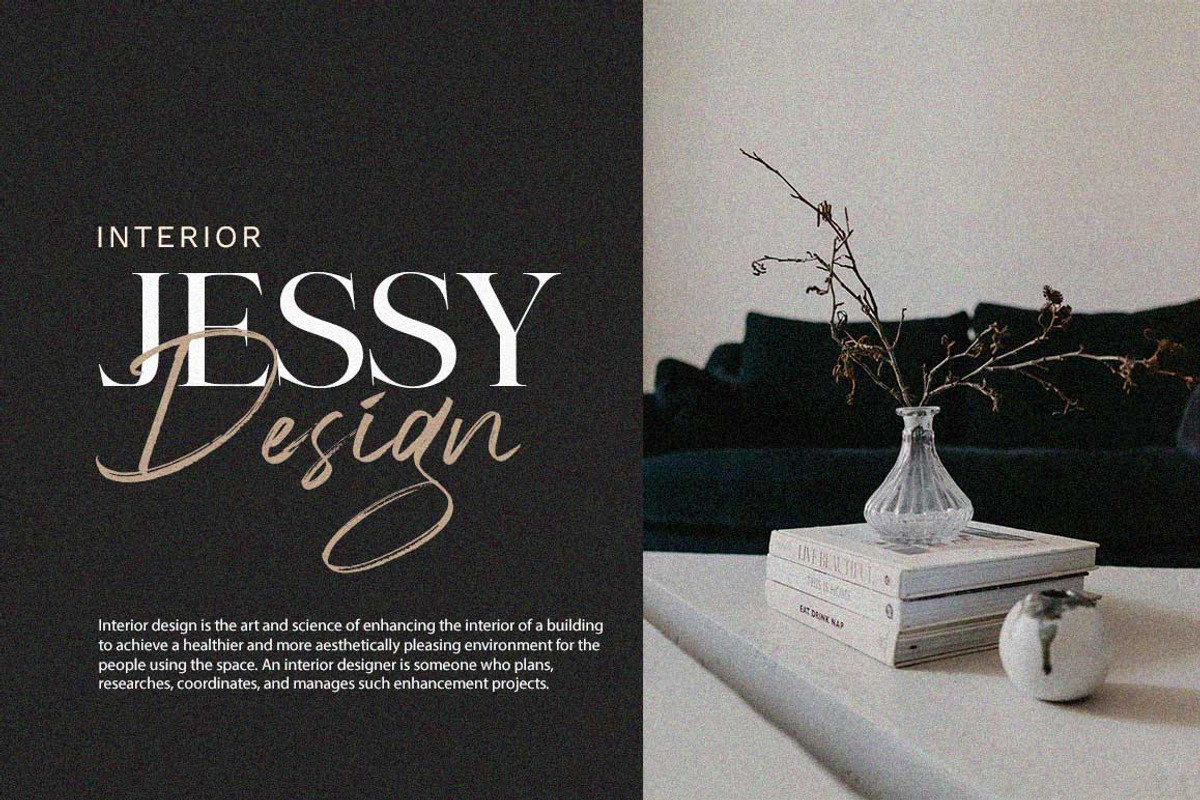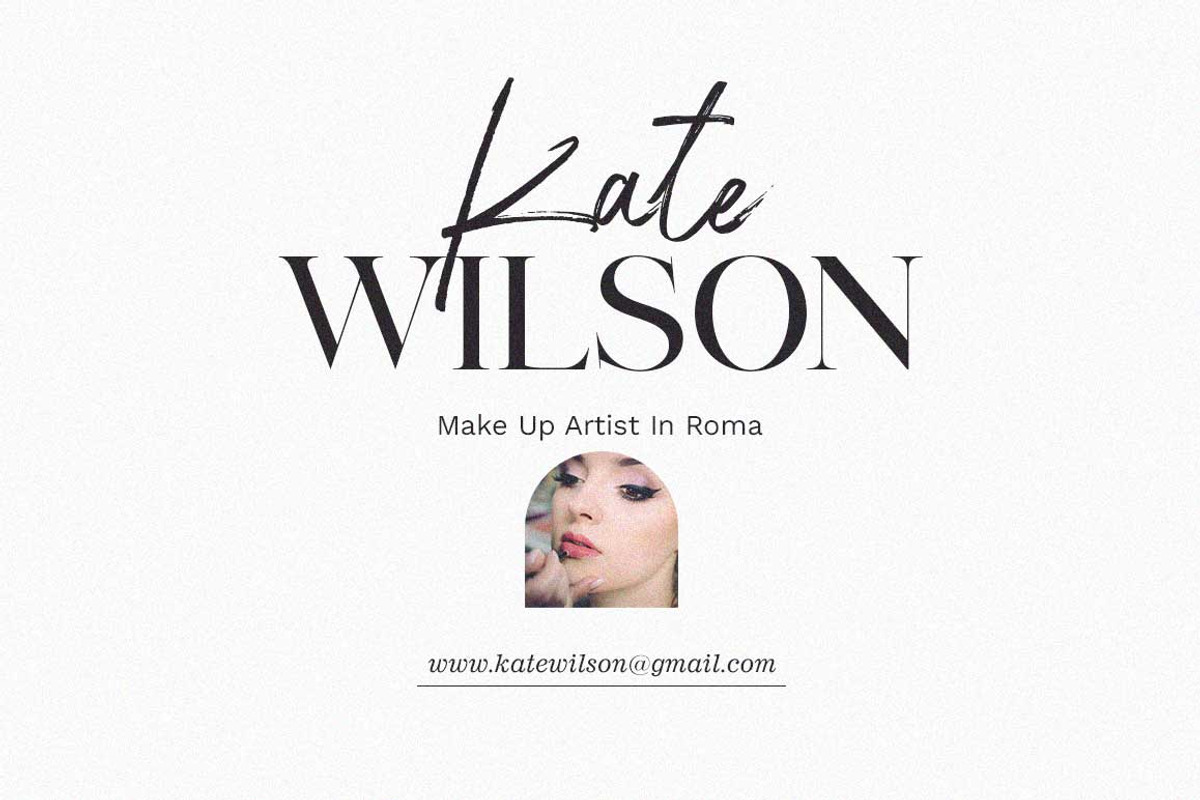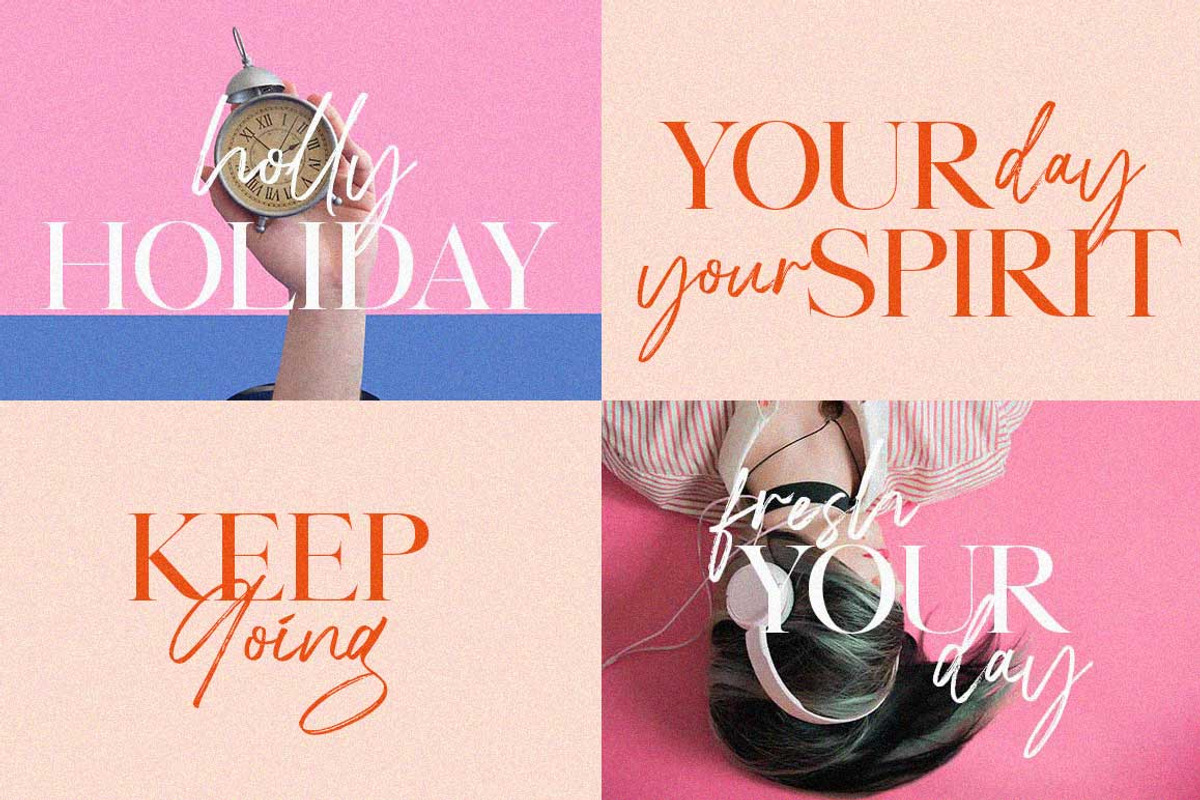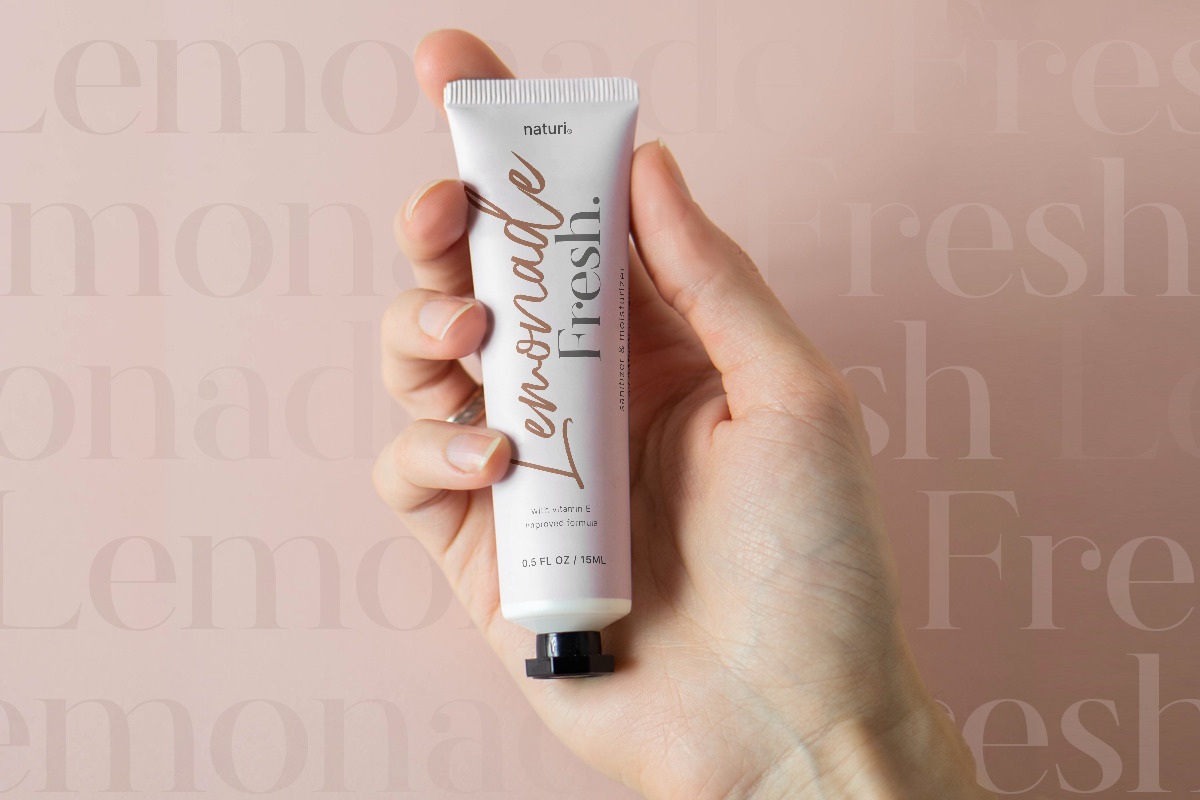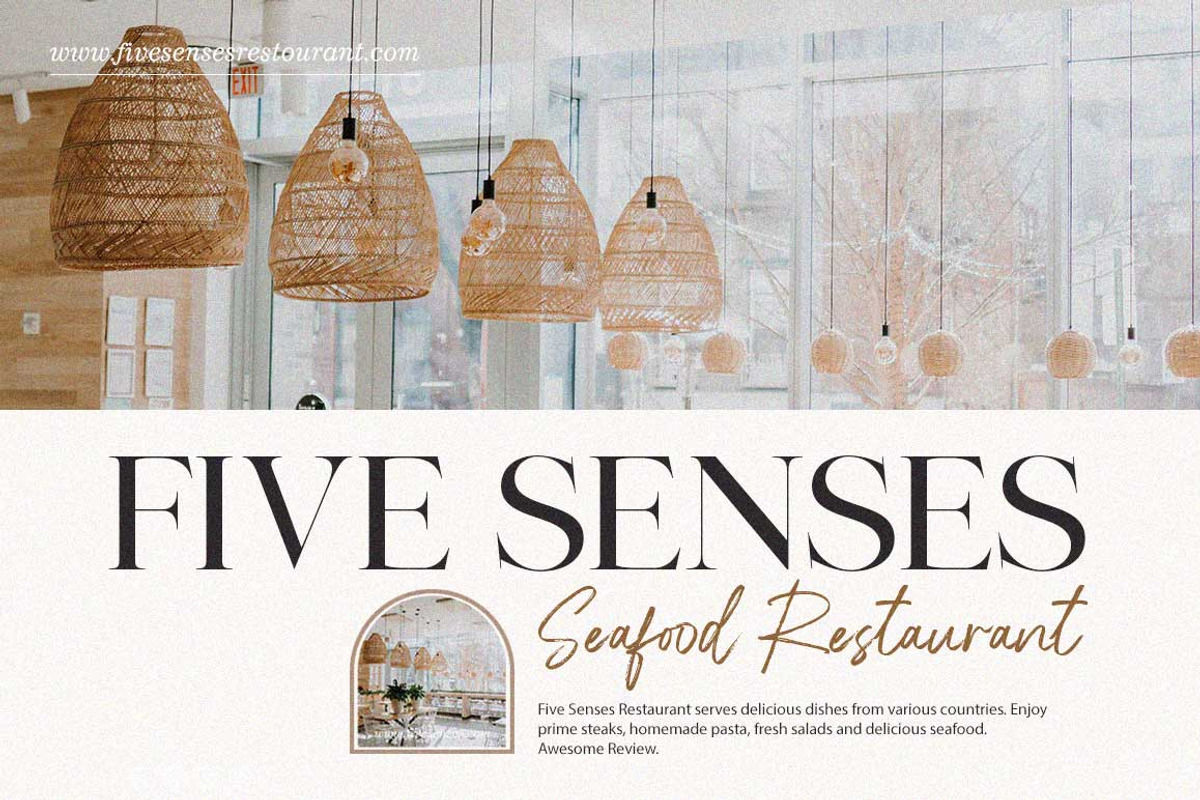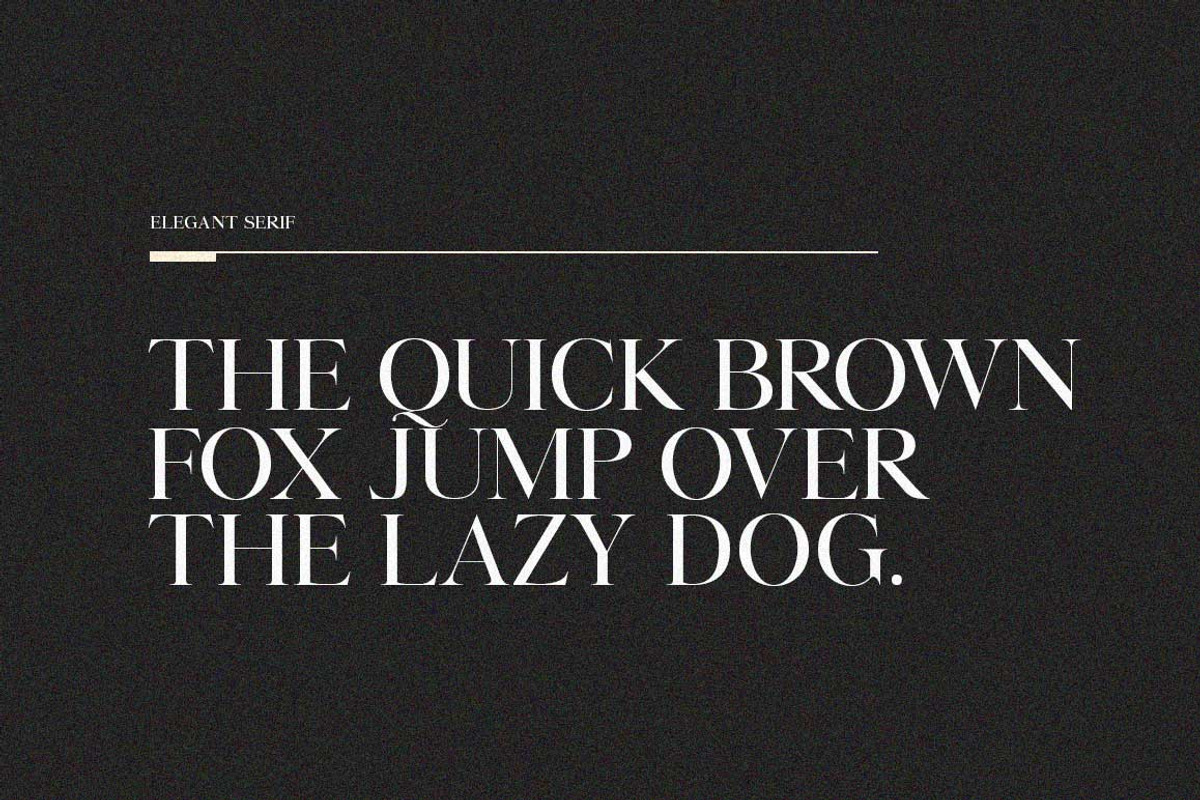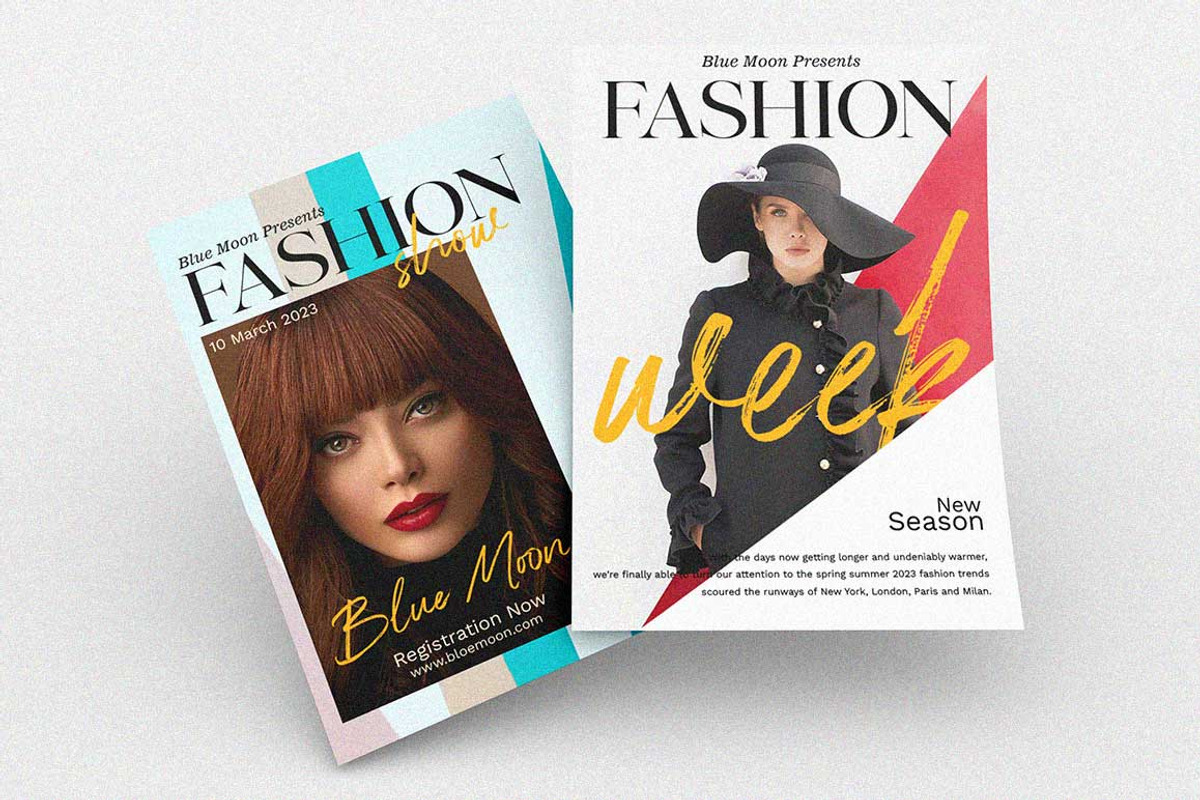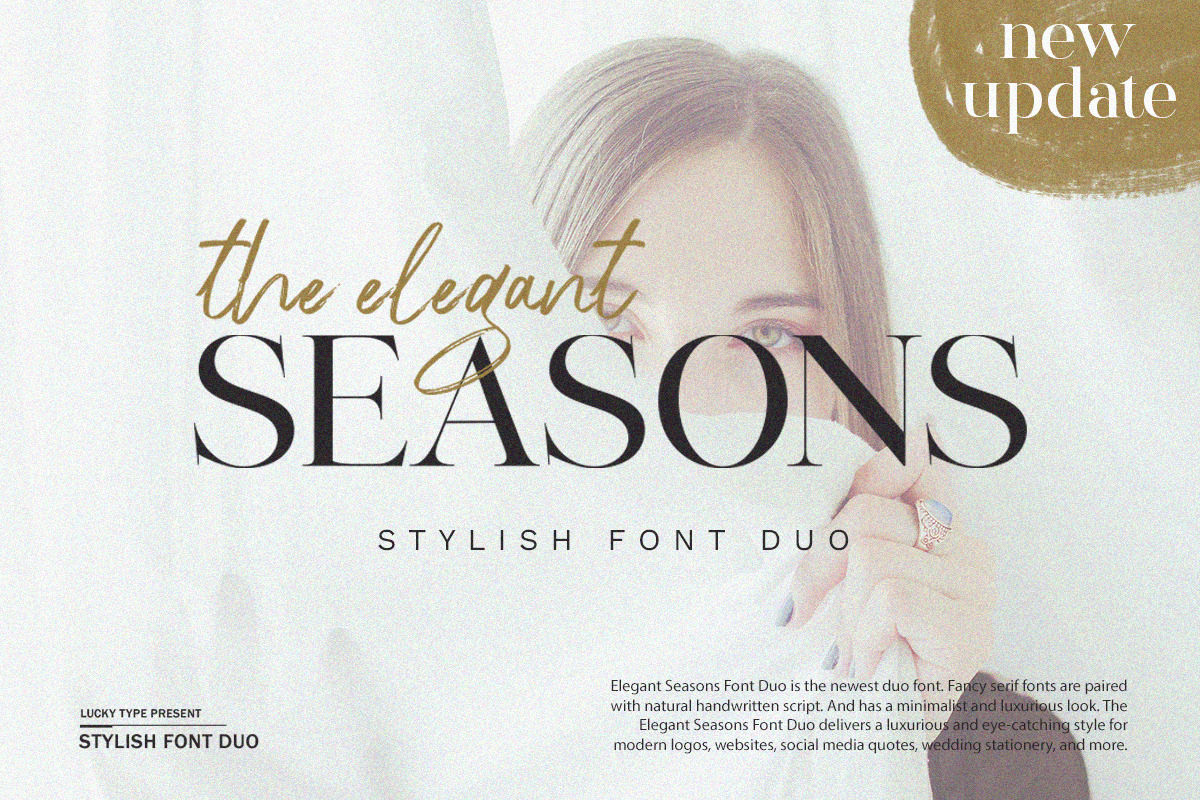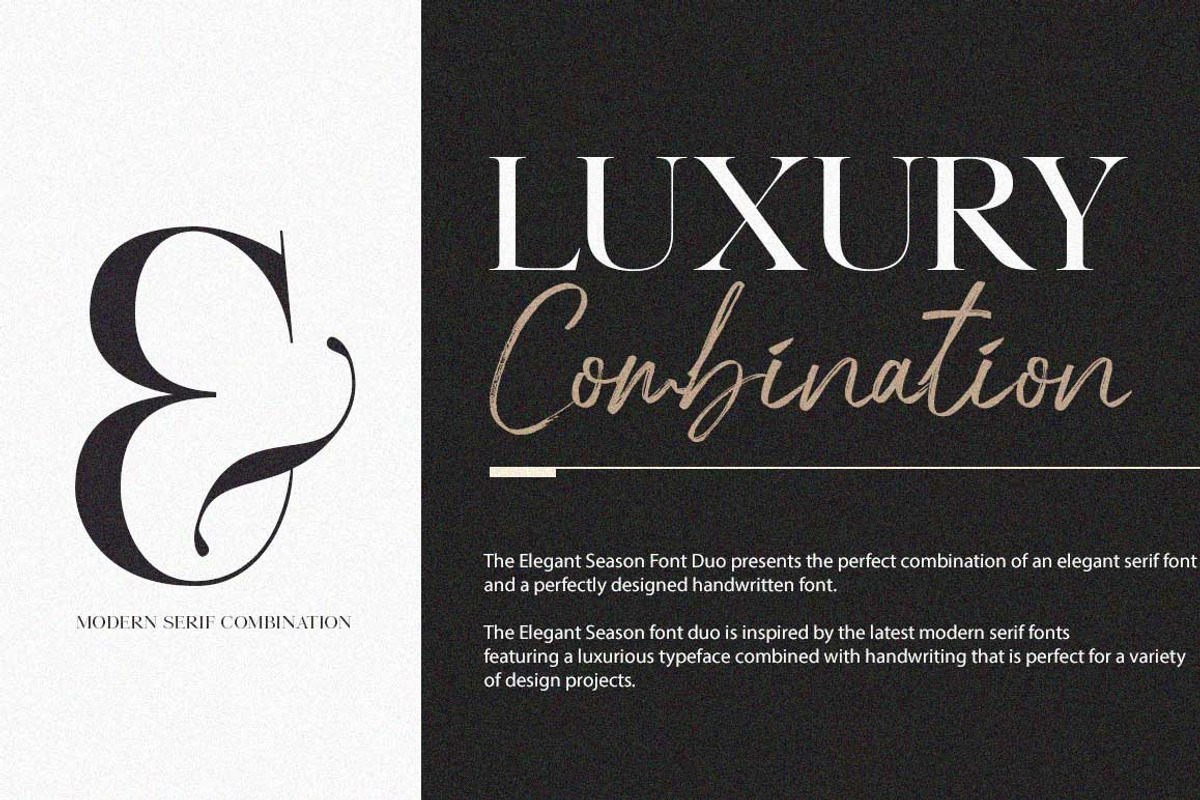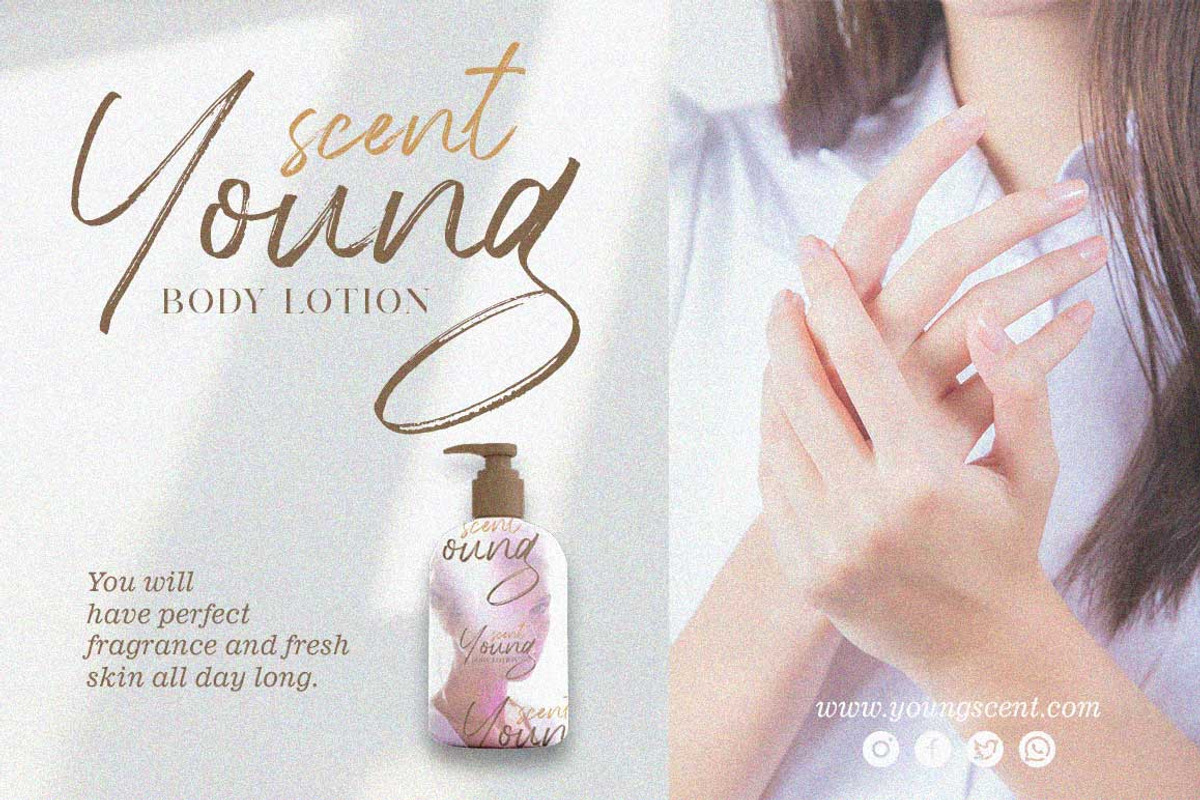
Elegant Seasons Font Duo
The Elegant Seasons Font Duo is the newest font duo to welcome the year 2023. A luxurious serif font paired with naturally handwritten script. It also has a minimalist and luxurious appearance. The Elegant Seasons Font Duo brings a luxurious and eye-catching style to modern logos, websites, social media quotes, wedding stationery and more.
Elegant Season Font Duo has been updated and is now available in lowercase for sans fonts and a clean version for script fonts.